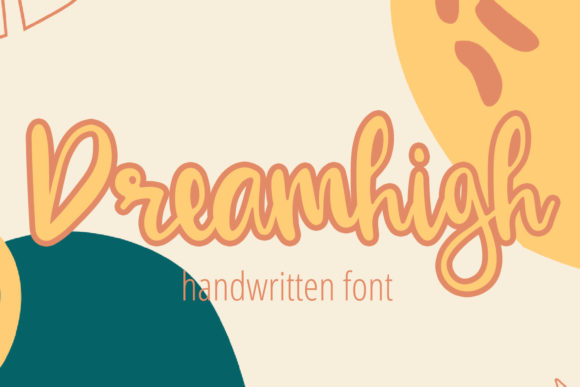
Unleash the elegance and charm of handwritten fonts with Dreamhigh, a captivating script font family meticulously crafted by Al Ghul. Each letter dances across the page, leaving a trail of sophistication and grace. Dreamhigh is more than just a font; it's an artistic expression that adds a touch of magic to your creative projects.
With its enchanting strokes and delicate curves, Dreamhigh is the perfect choice for wedding invitations, greeting cards, branding, logos, posters, and social media posts. Its versatility knows no bounds, making it a must-have for designers, crafters, and creative enthusiasts alike.
Imagine the awe-inspiring wedding invitations your guests will receive, adorned with Dreamhigh's graceful letters. The font's romantic aura will set the tone for a truly unforgettable celebration. Or envision the impact of your business logo, rendered in Dreamhigh's bold and confident style. It will command attention and leave a lasting impression on your clients.
Dreamhigh's charm extends beyond its aesthetic appeal. Its user-friendly nature makes it a joy to work with. Whether you're a seasoned designer or just starting, you'll find Dreamhigh incredibly easy to incorporate into your creative projects.
Don't settle for ordinary fonts that fail to capture the essence of your vision. Embrace the beauty and versatility of Dreamhigh, and watch your creative ideas come to life in a stunning and captivating manner.